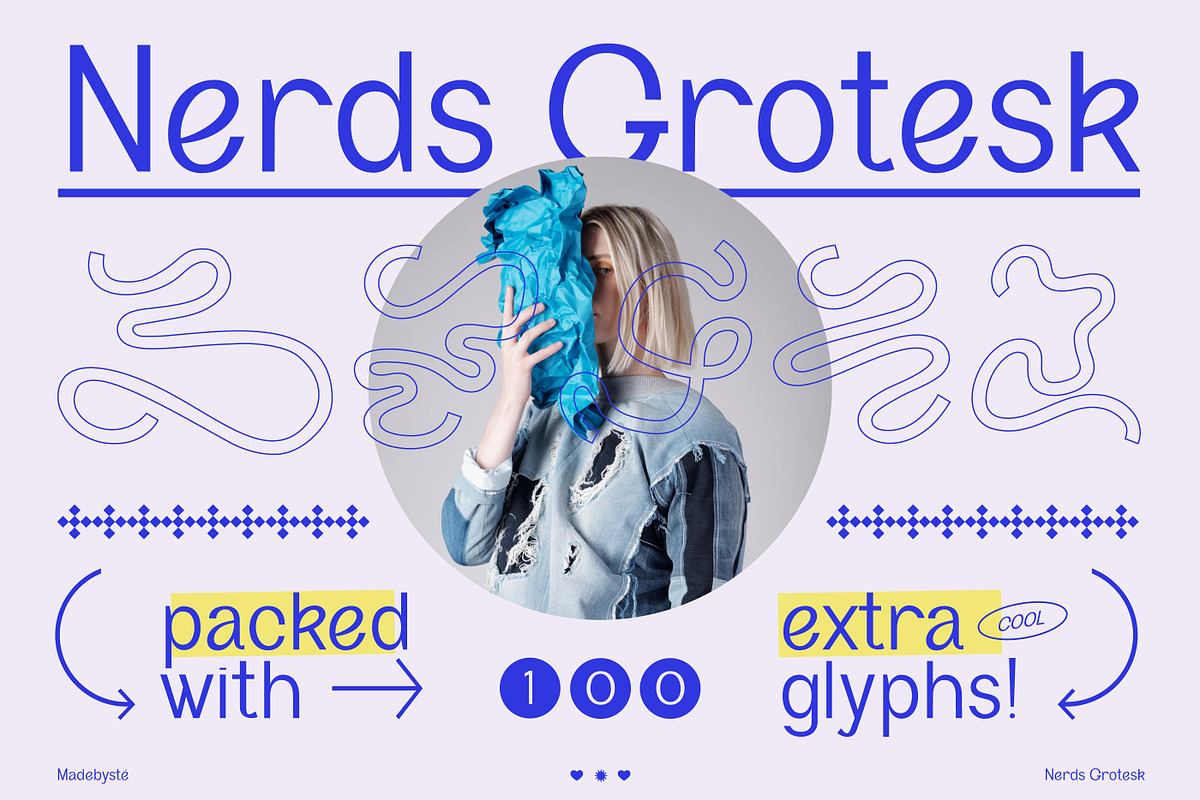
Nerds Grotesk Font Free Download is a contemporary sans-serif typeface with a quirky twist, designed for projects that demand both clarity and character. Its clean structure, subtle irregularities, and bold presence make it an excellent choice for branding, editorial design, websites, tech startups, and modern posters. Nerds Grotesk merges the timeless appeal of grotesque fonts with a playful, intellectual vibe that feels fresh and distinctive.
Whether you’re working on UI/UX design, product packaging, or minimalist layouts, this font brings personality without sacrificing professionalism. It’s optimized for legibility and perfect for both headlines and body content.